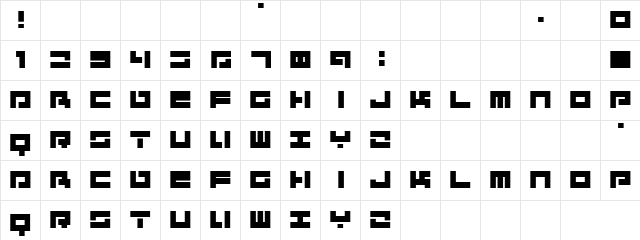
MD Performar AL Regular
Design Context for MD Performar AL Typeface
MD Performar AL is a composed and adaptable typeface that performs quietly and consistently across a wide range of design contexts.